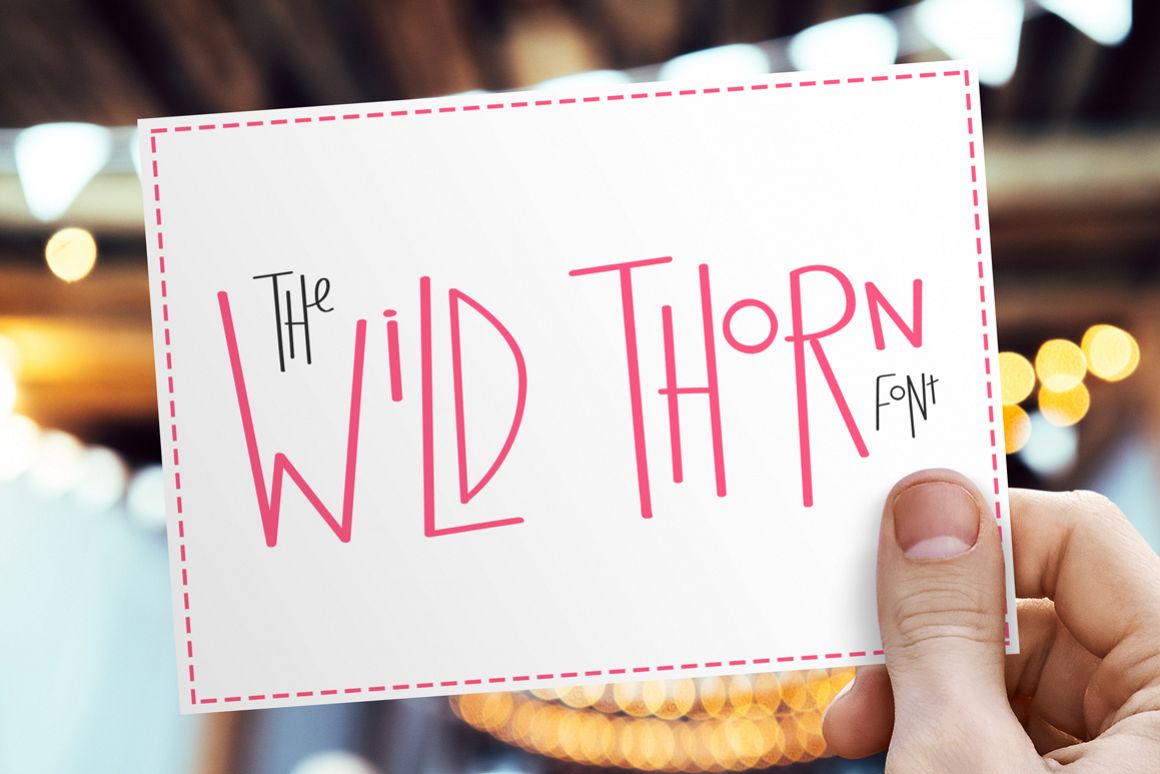
Introducing Wild Thorn.. a brand-spanking new font with attitude. With it's fun tall and small letter combos, you can create a unique and funky look in seconds.The lowercase fits snugly into the uppercase letters, making them the perfect duo! Grab your copy today for ONLY $9!Whats Included: